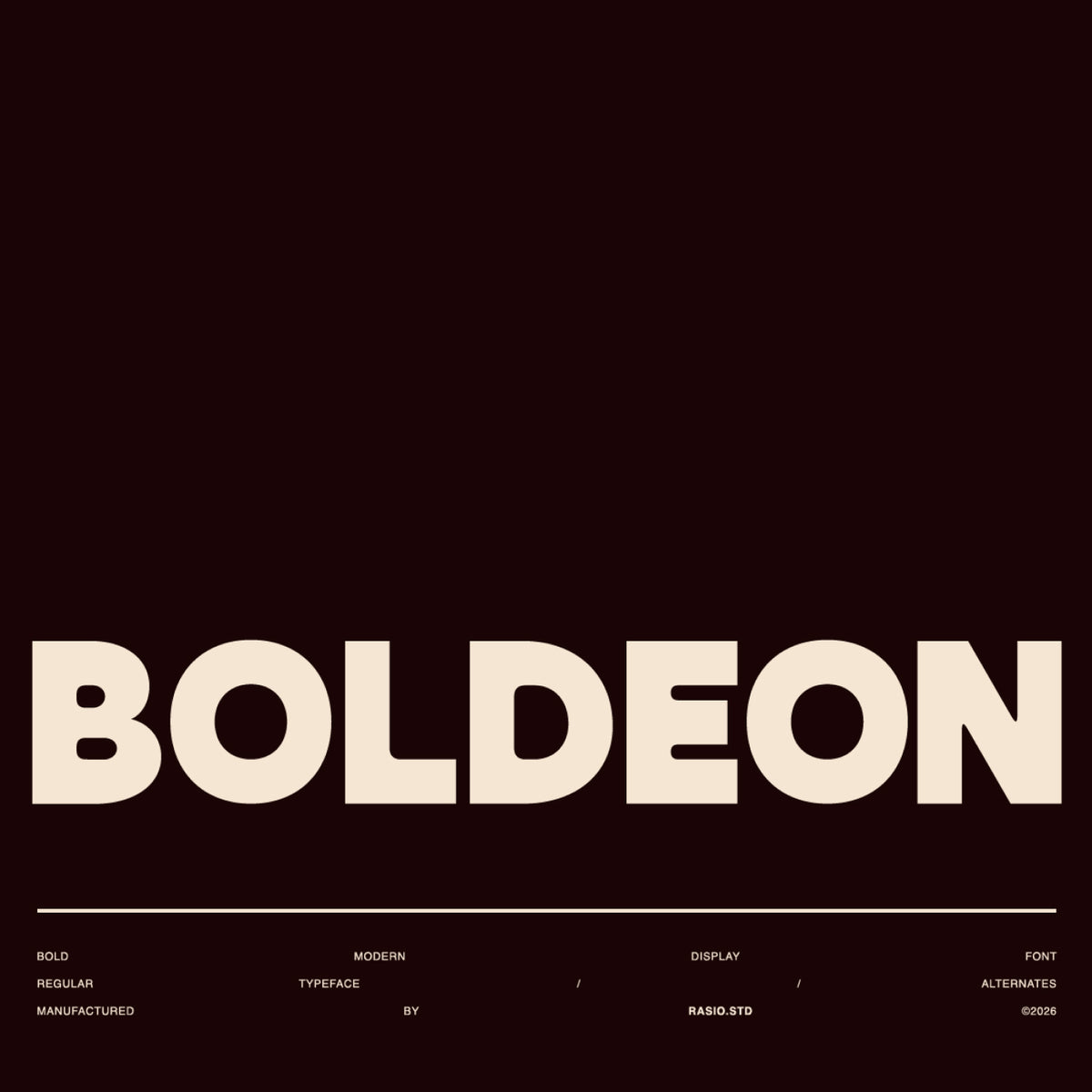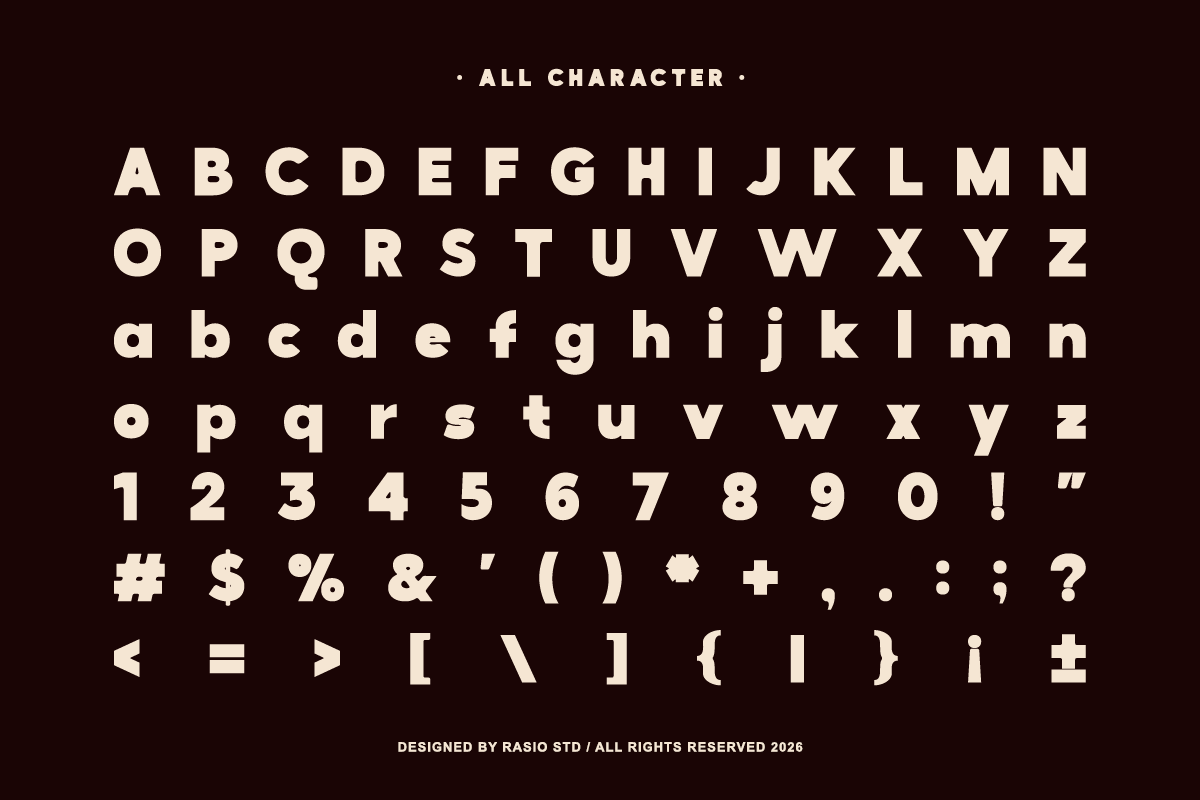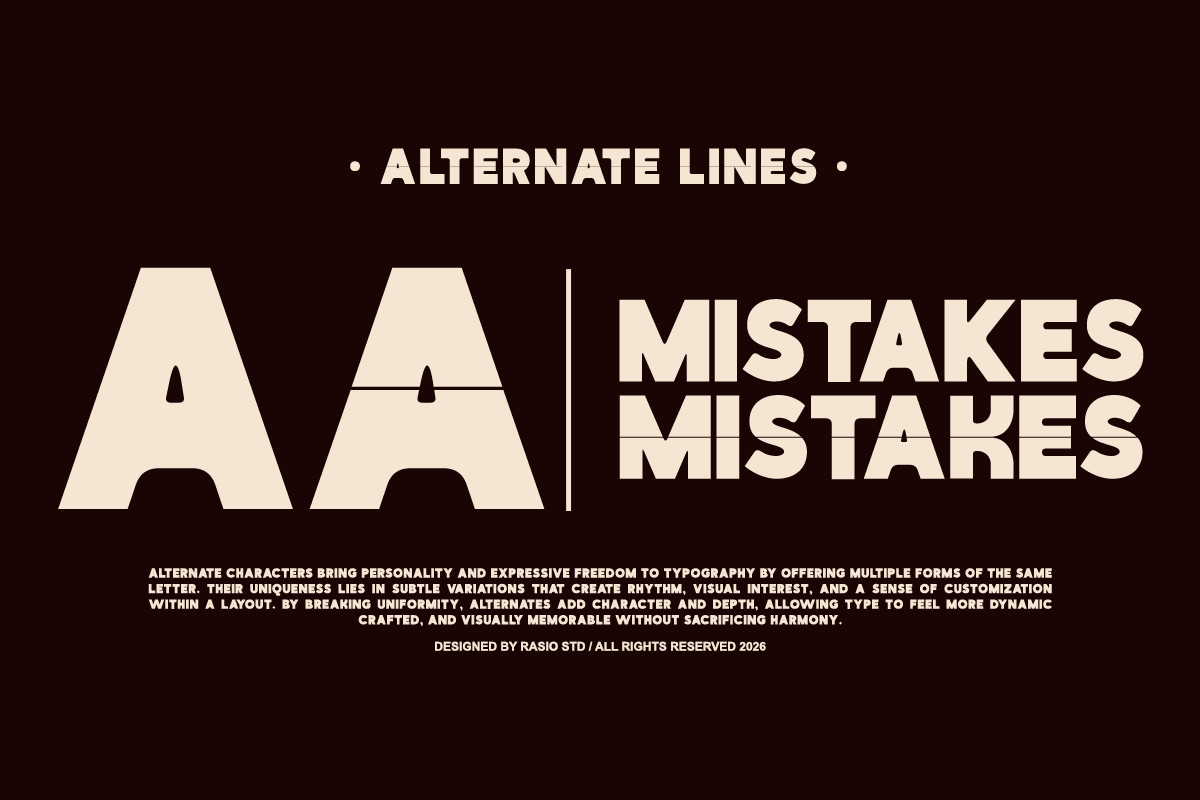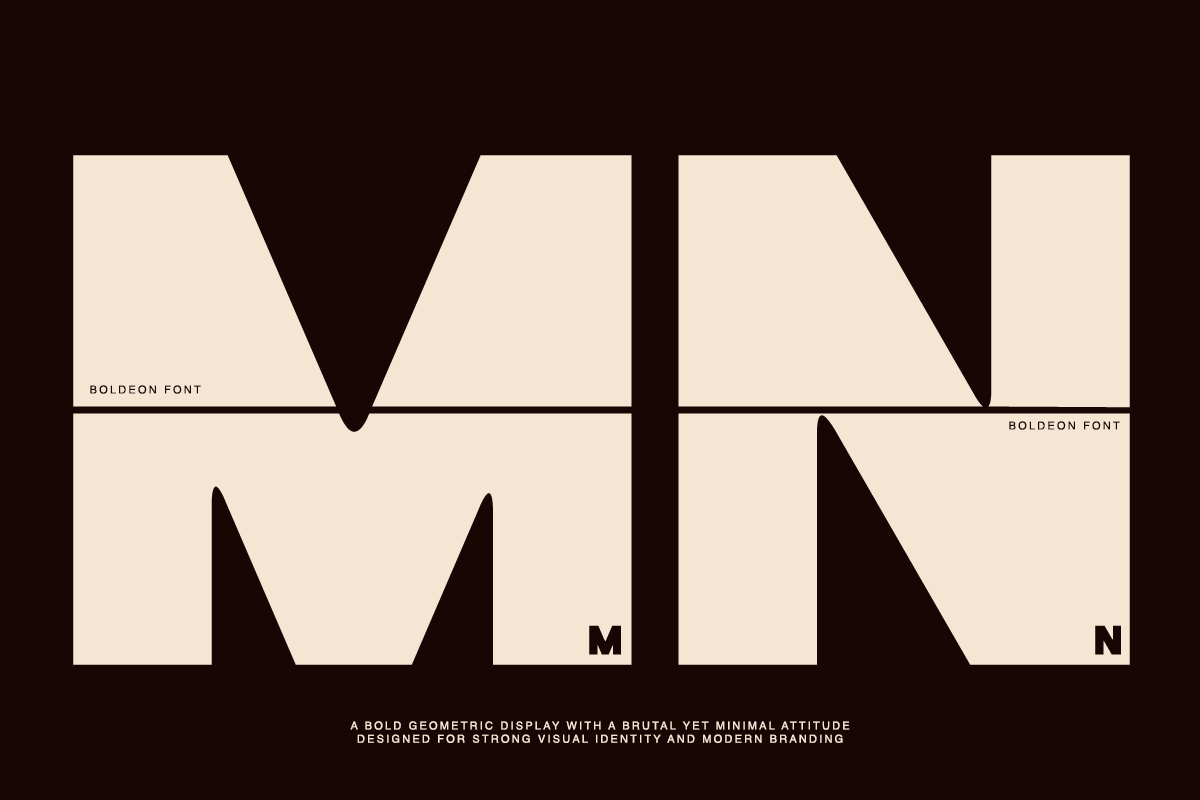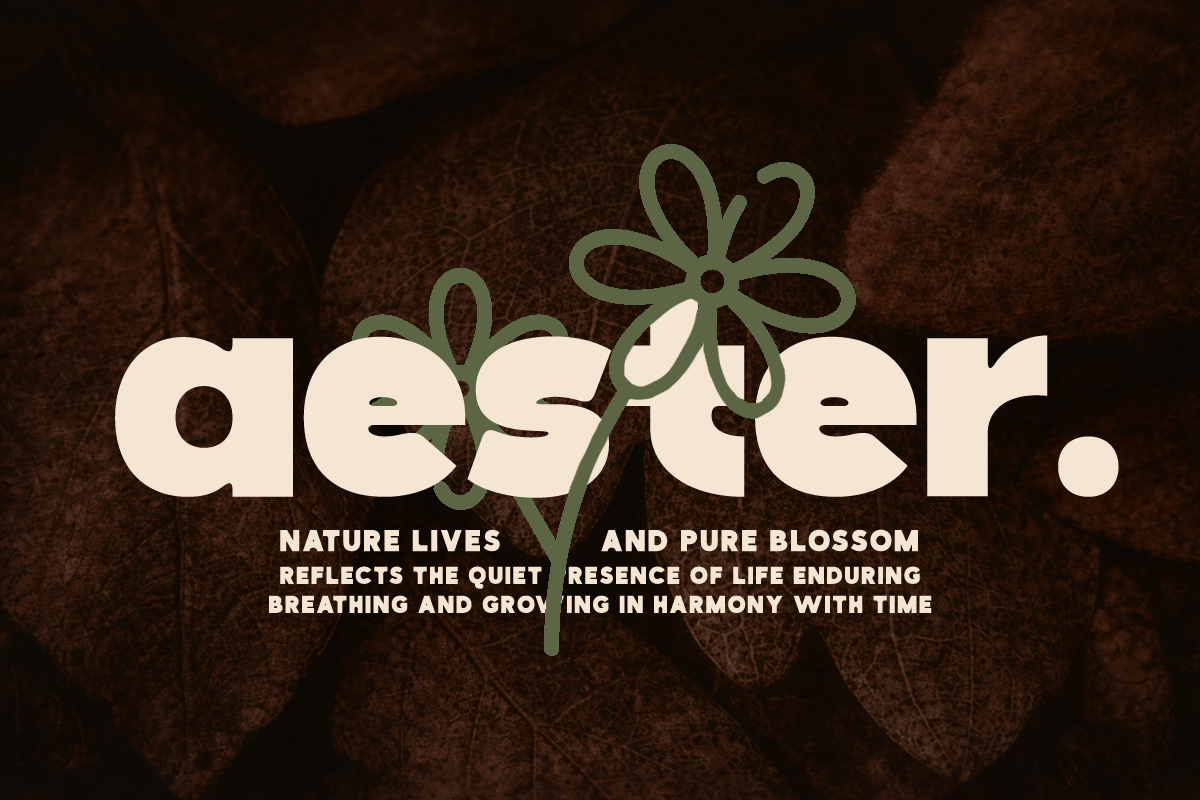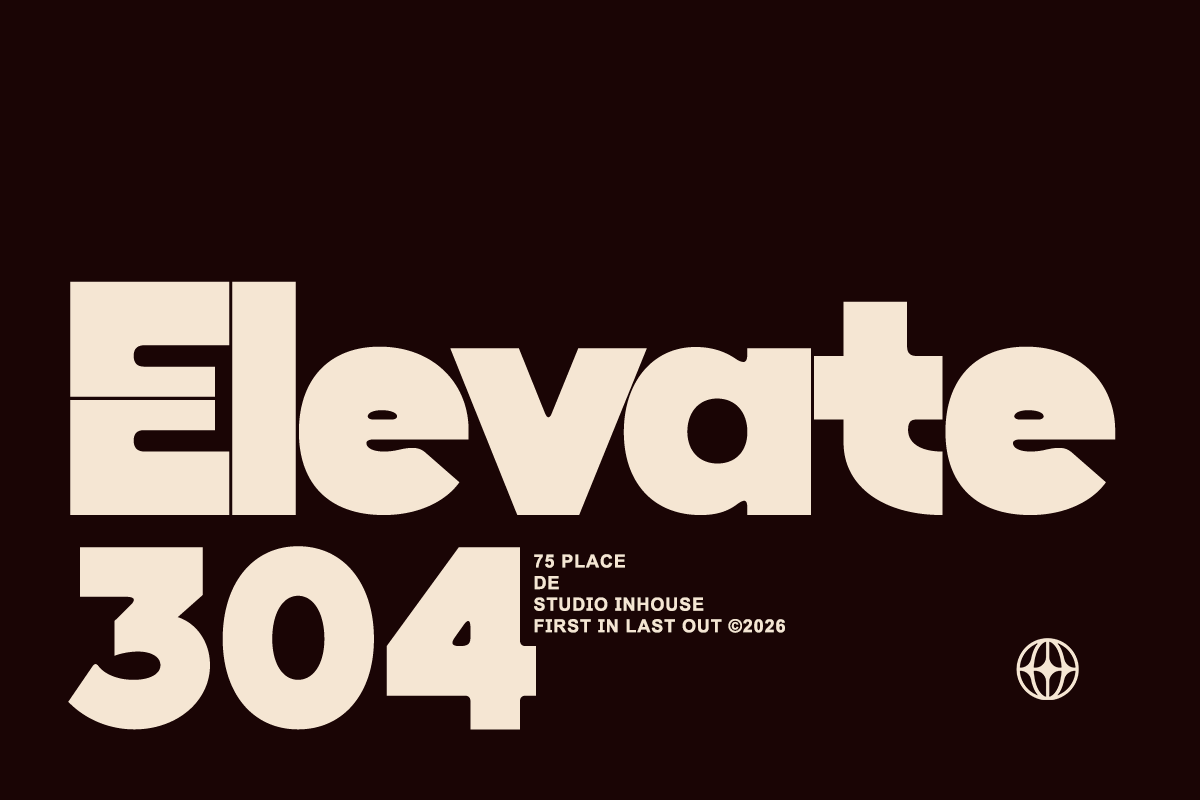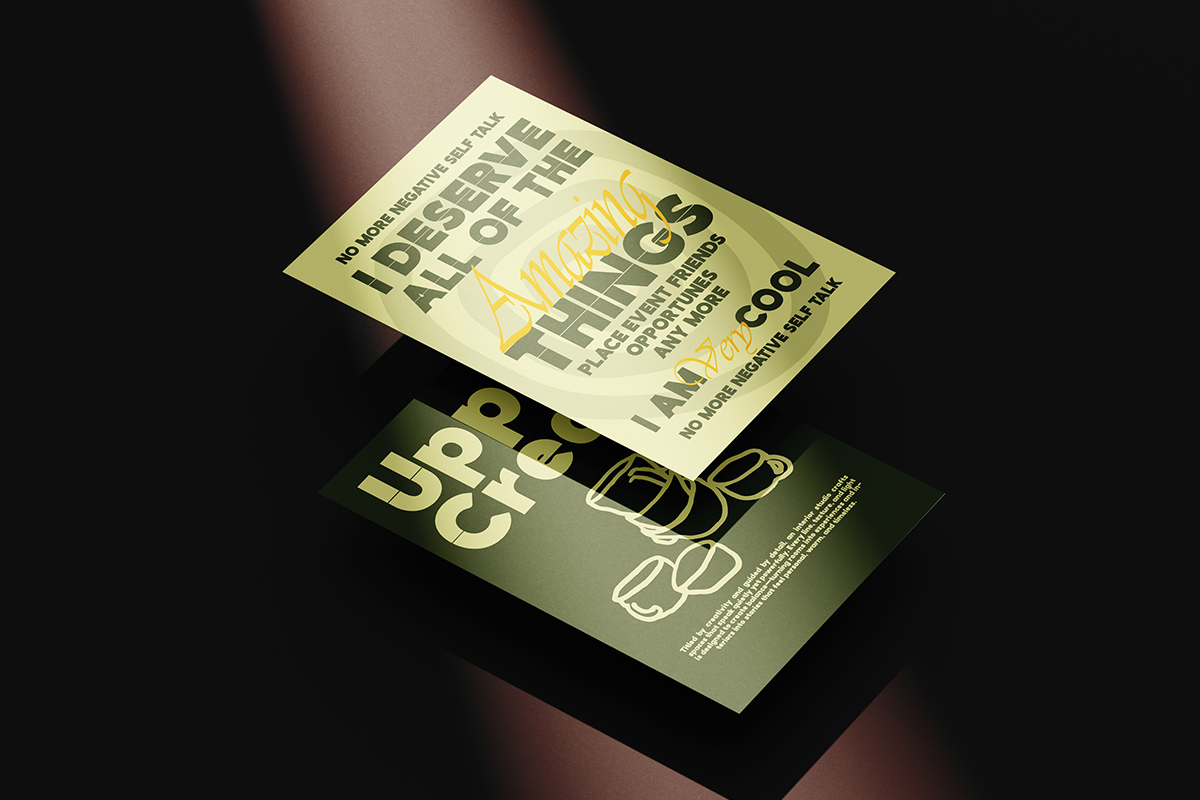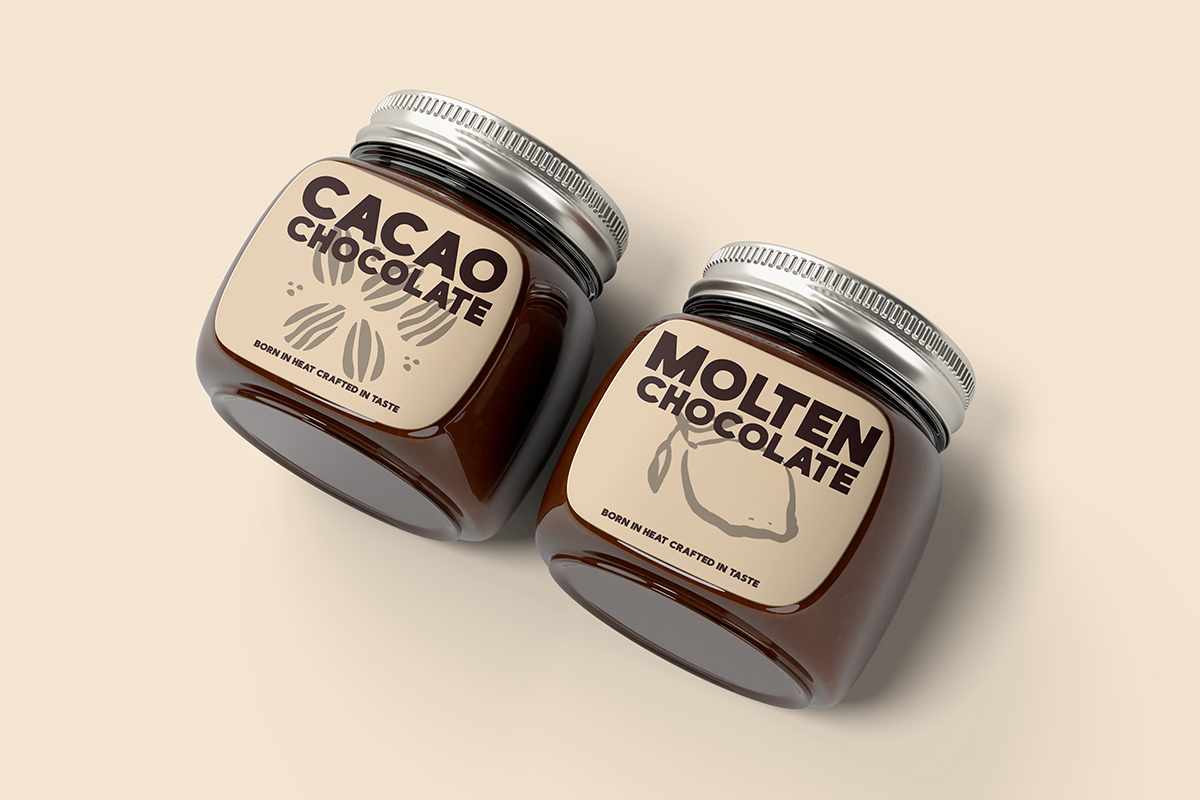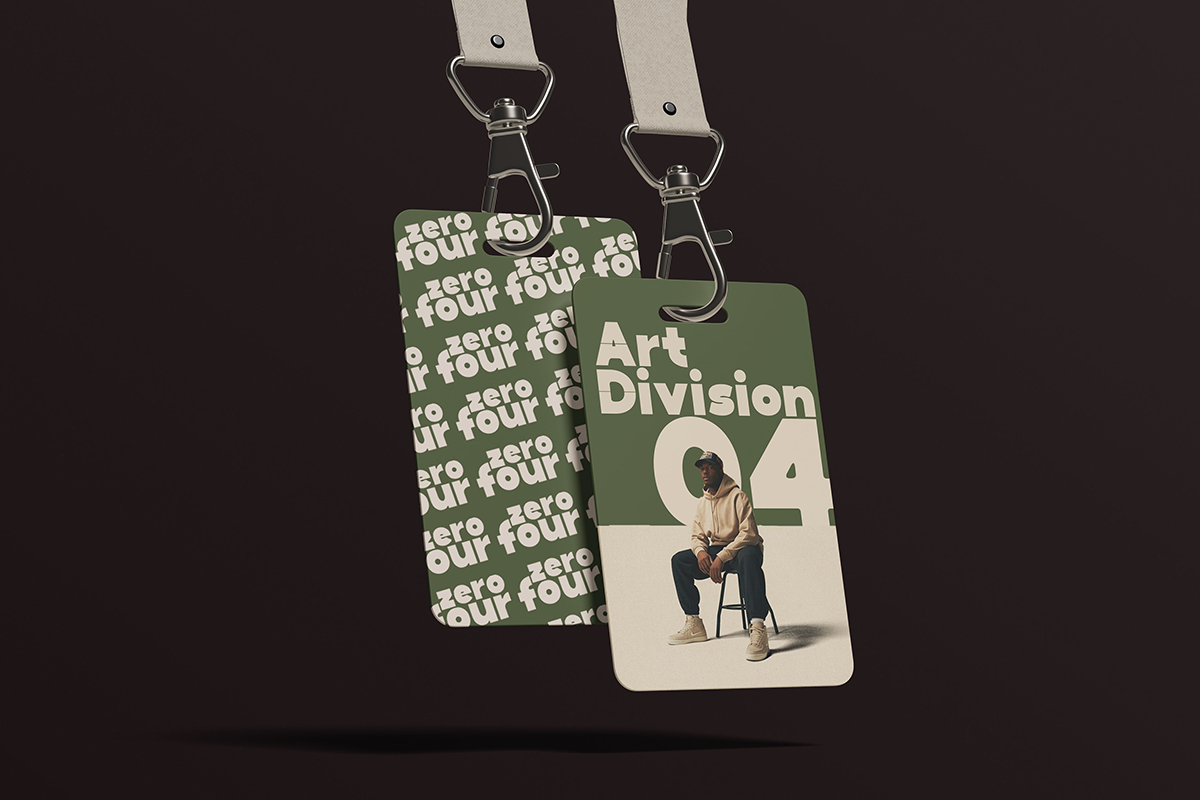
Boldeon Bold Modern Display Font
Boldeon is a powerful, bold display typeface designed to grab attention and leave a lasting impression. With its chunky letterforms and geometric construction, it’s perfect for impactful headlines, posters, product branding, logo designs, and bold editorial layouts. The font includes uppercase, lowercase, numerals, punctuation, and alternates to give you design flexibility. Whether you're building a strong brand or crafting an edgy design, Boldeon gives your typography unmistakable presence.
Alternate Supports
Boldeon is a bold, geometric display typeface that includes uppercase and lowercase letters, numerals, punctuation, and alternate characters. It is available in OTF, TTF, and WOFF formats.